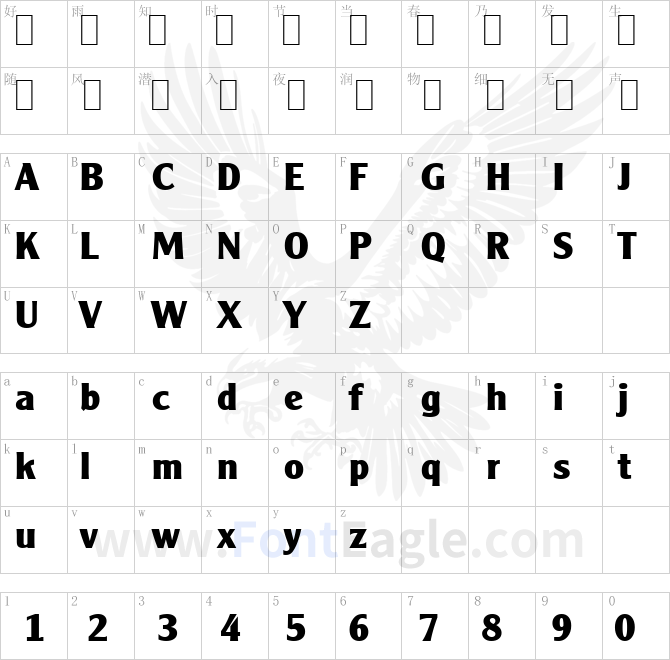
Cleargothic-Serial-ExtraBold-Regular is a great font, widely used in graphic design, single-page menu design, poster design and other fields, and is deeply loved by designers.Cleargothic-Serial-ExtraBold-Regular download.